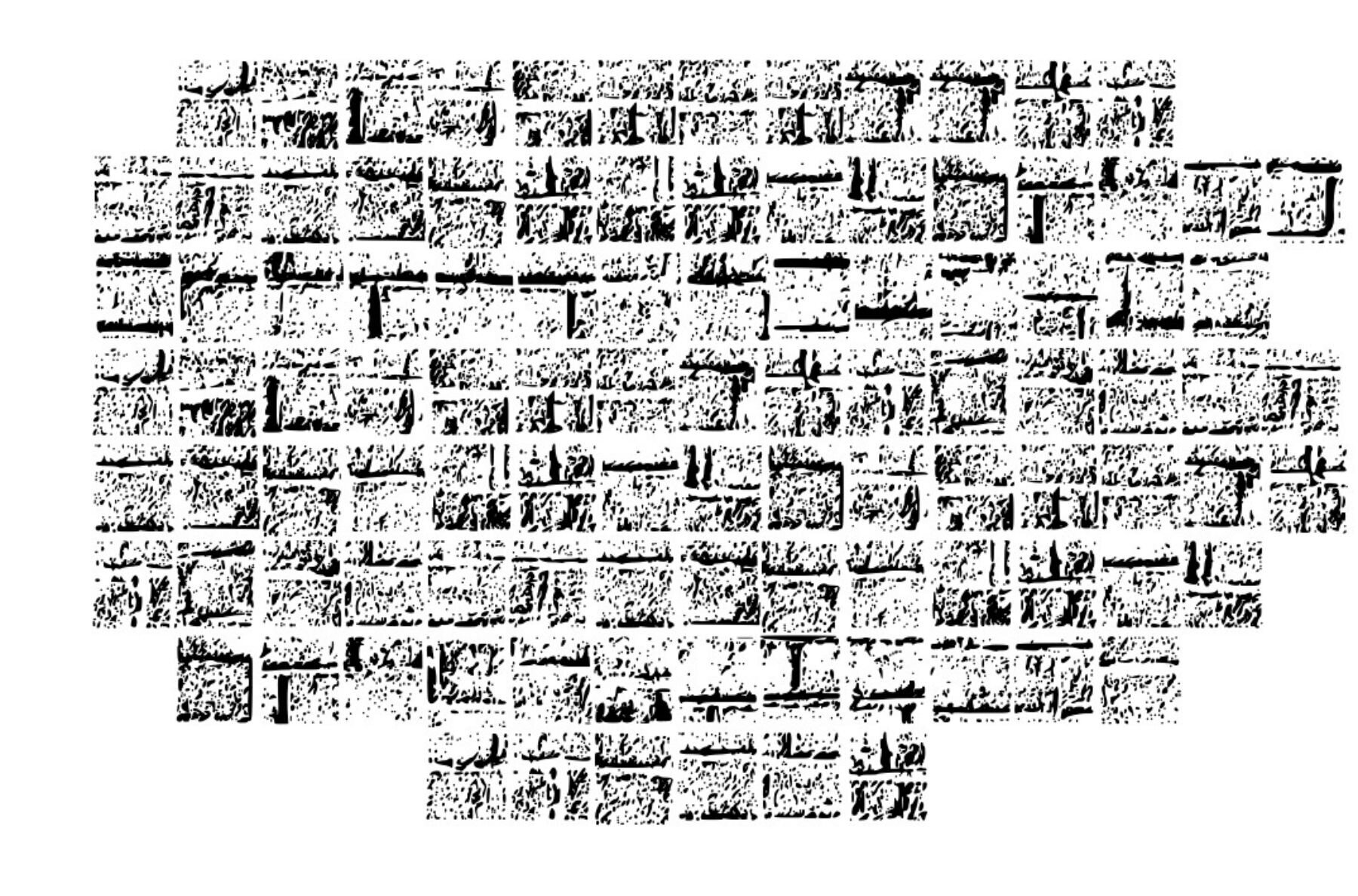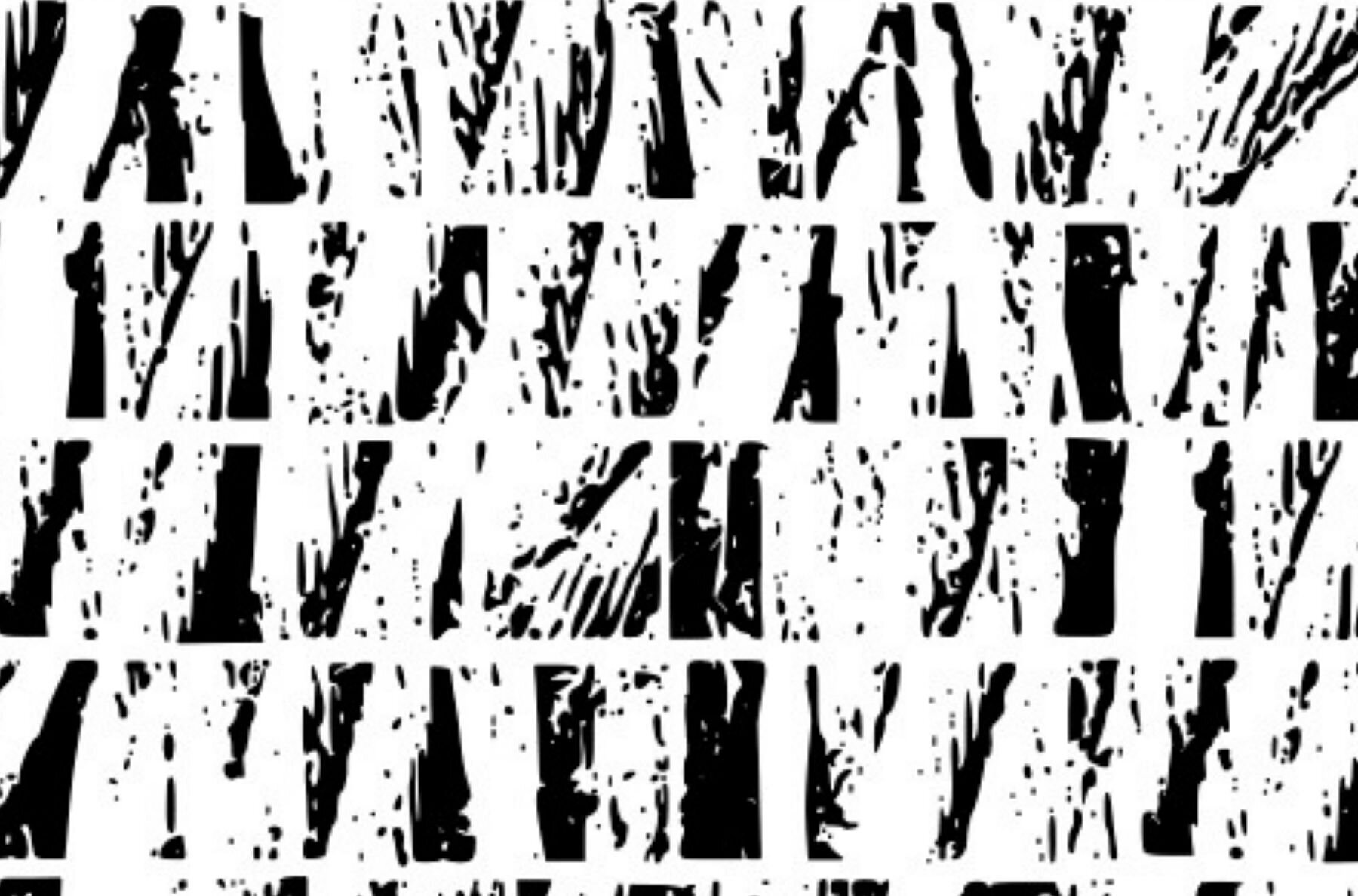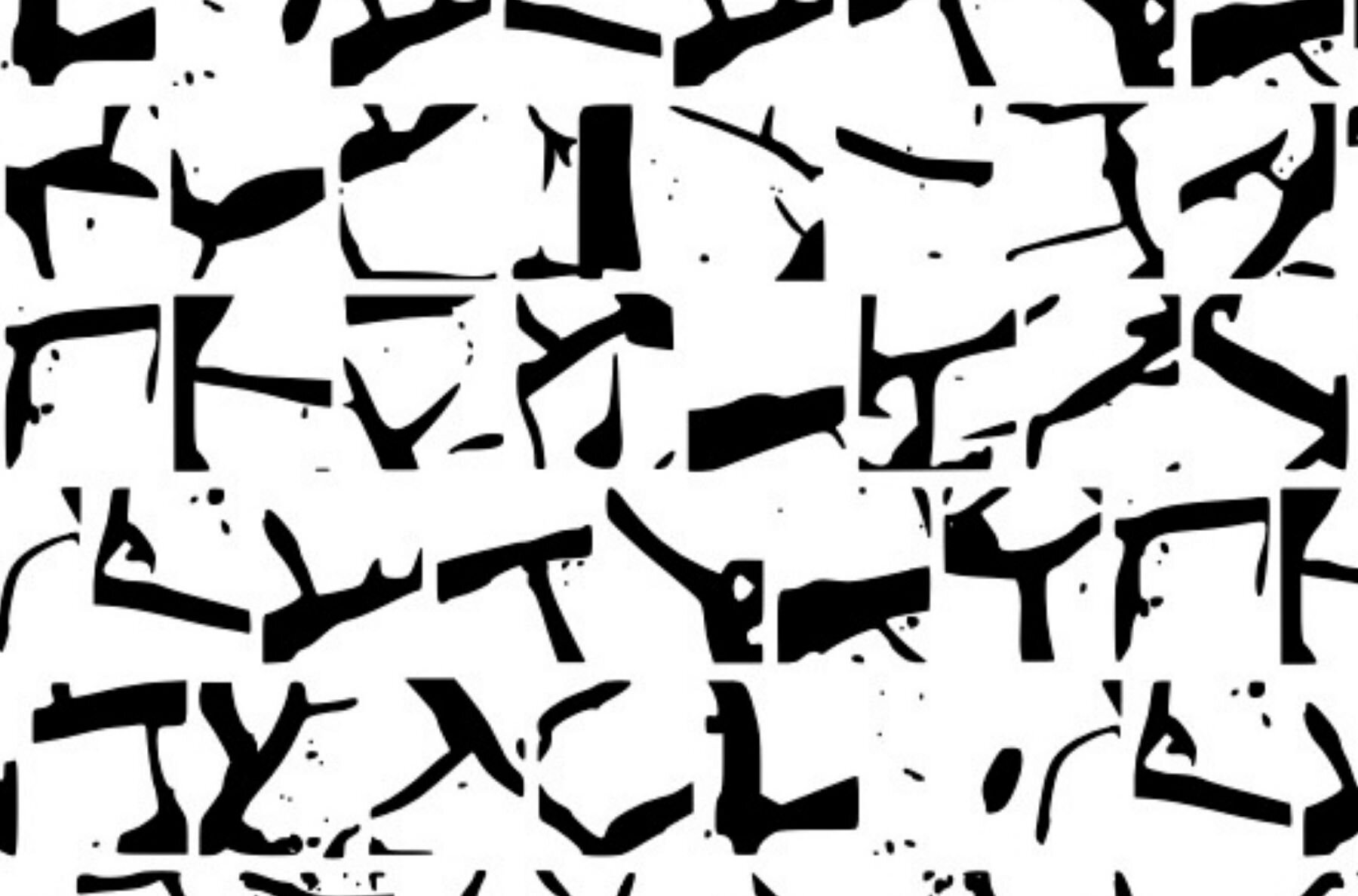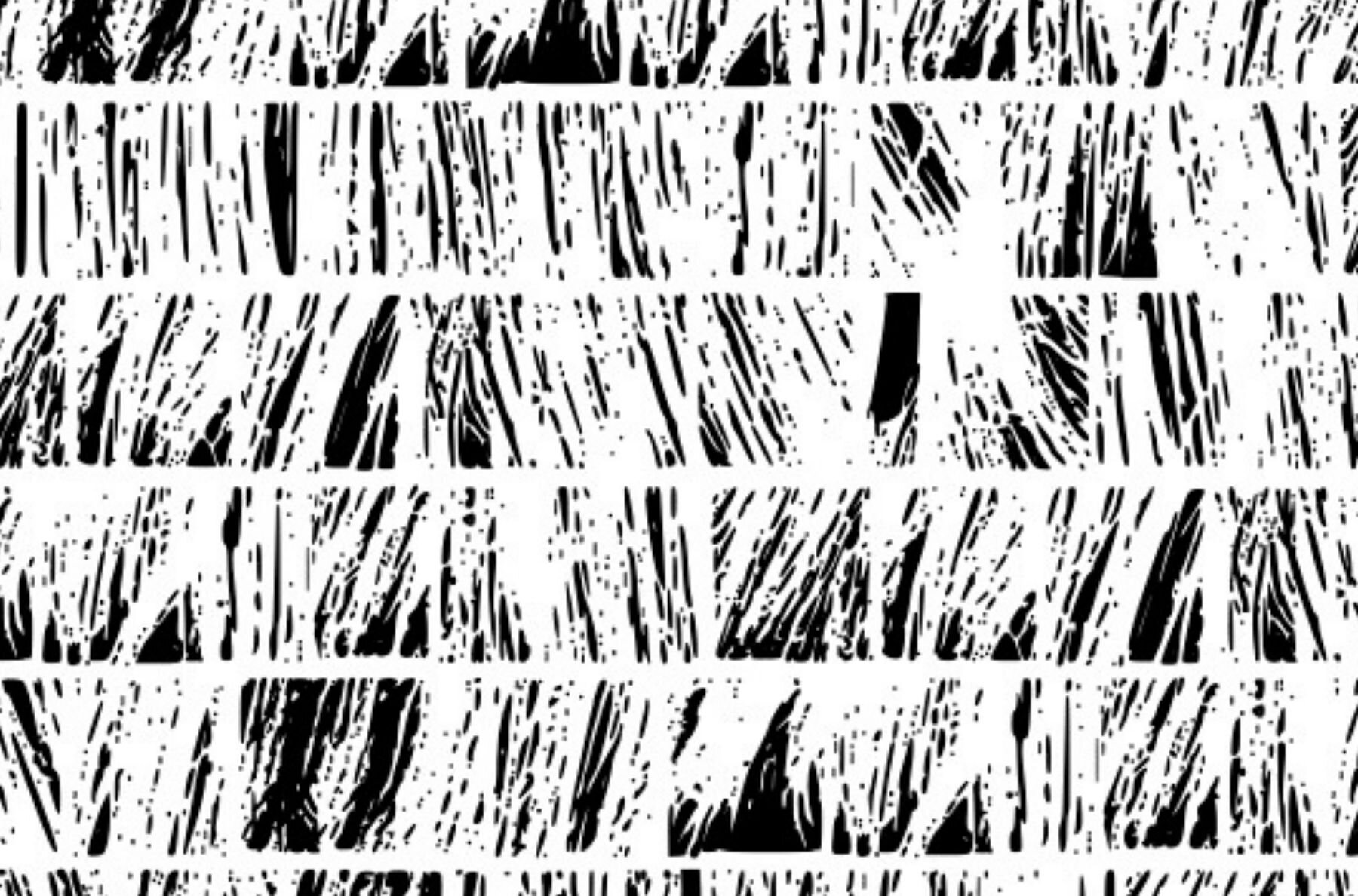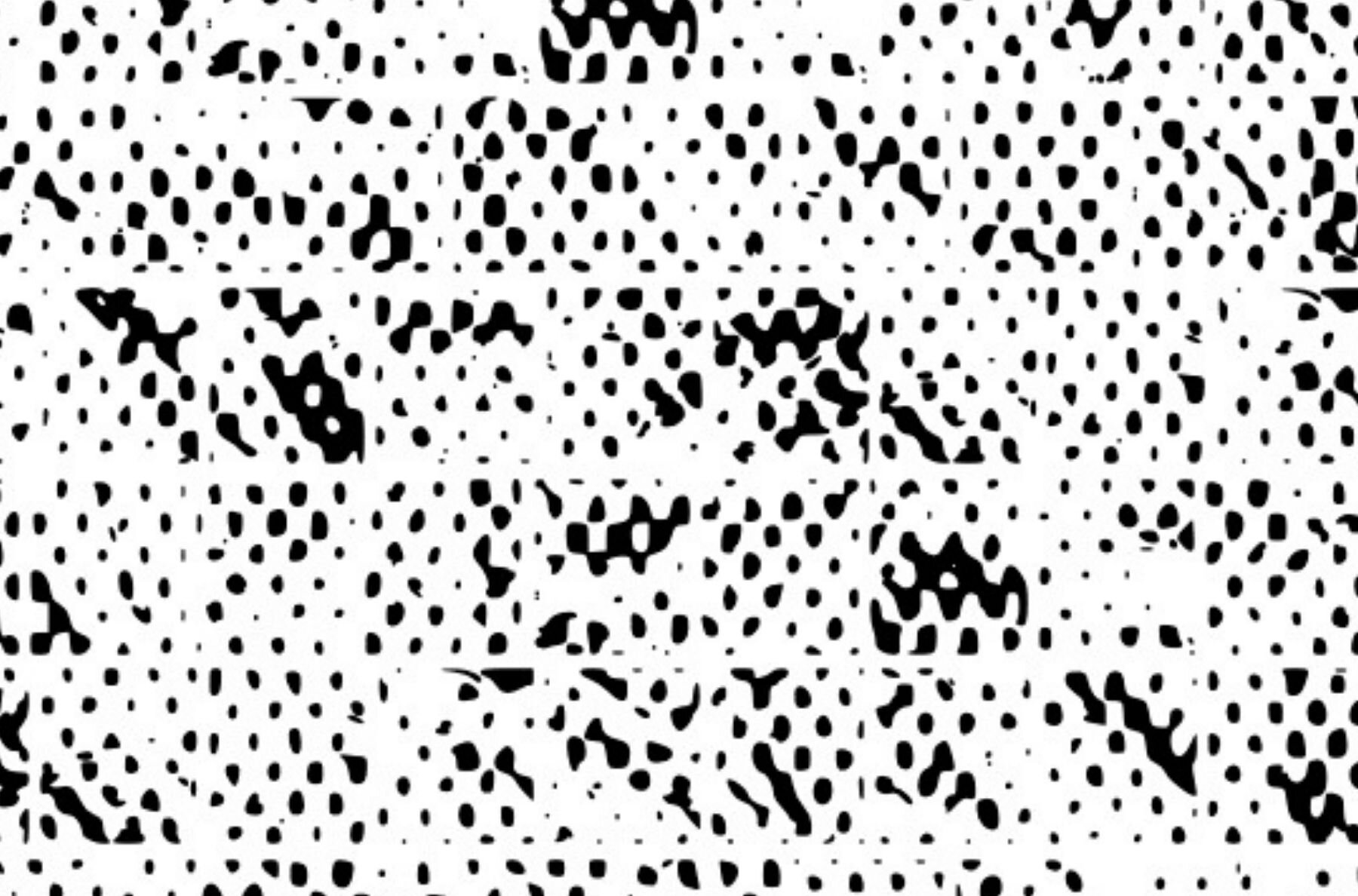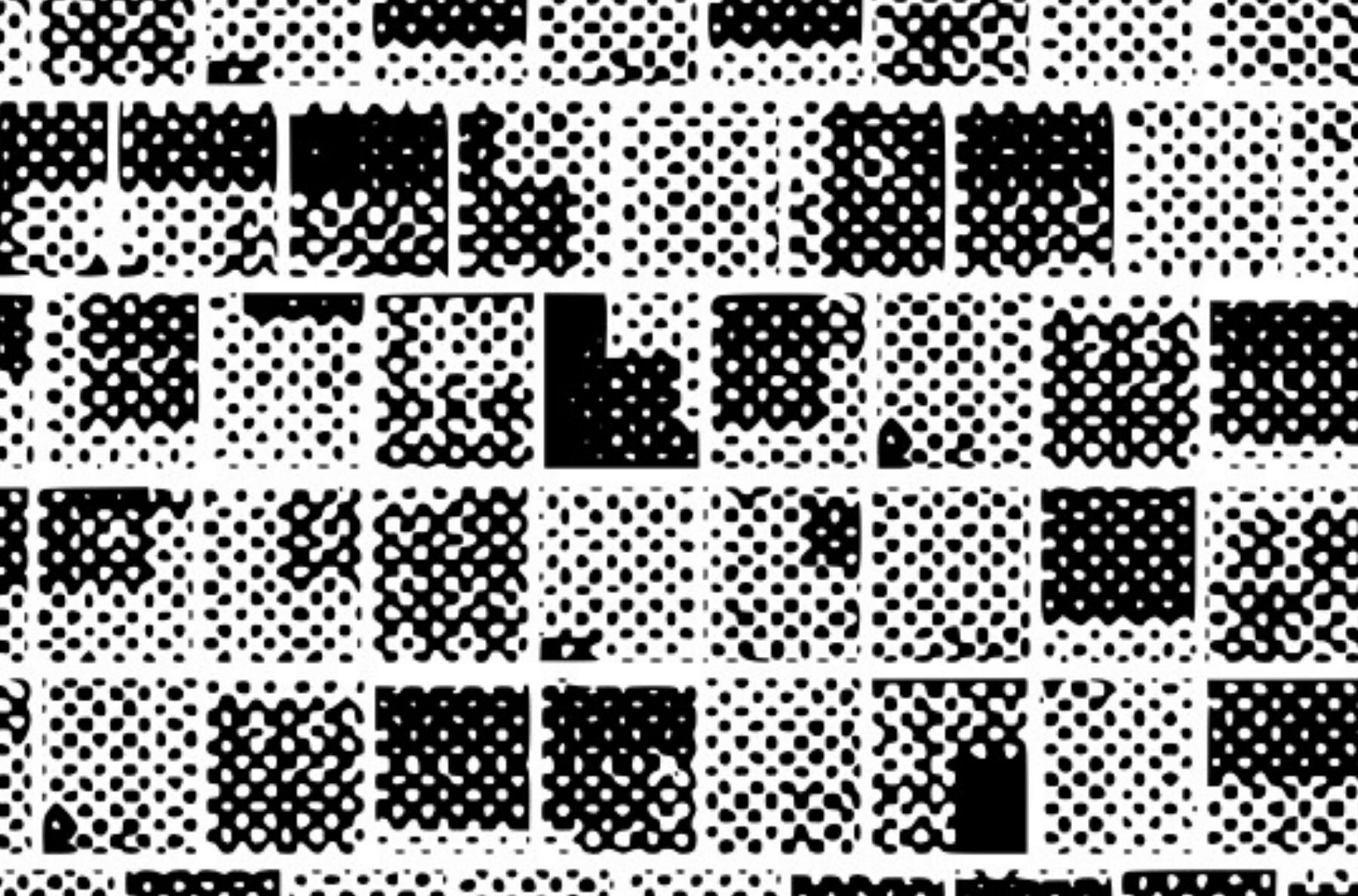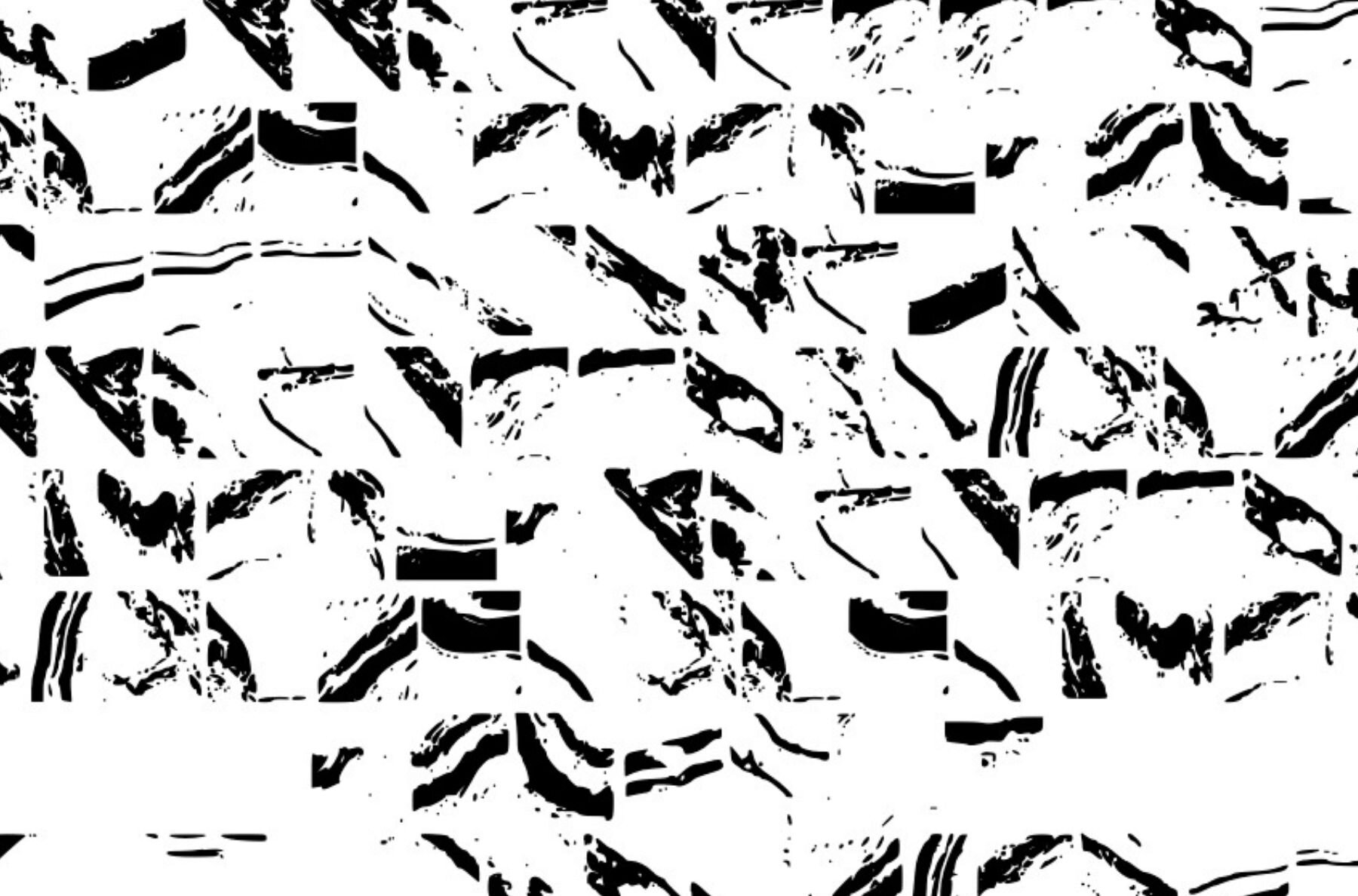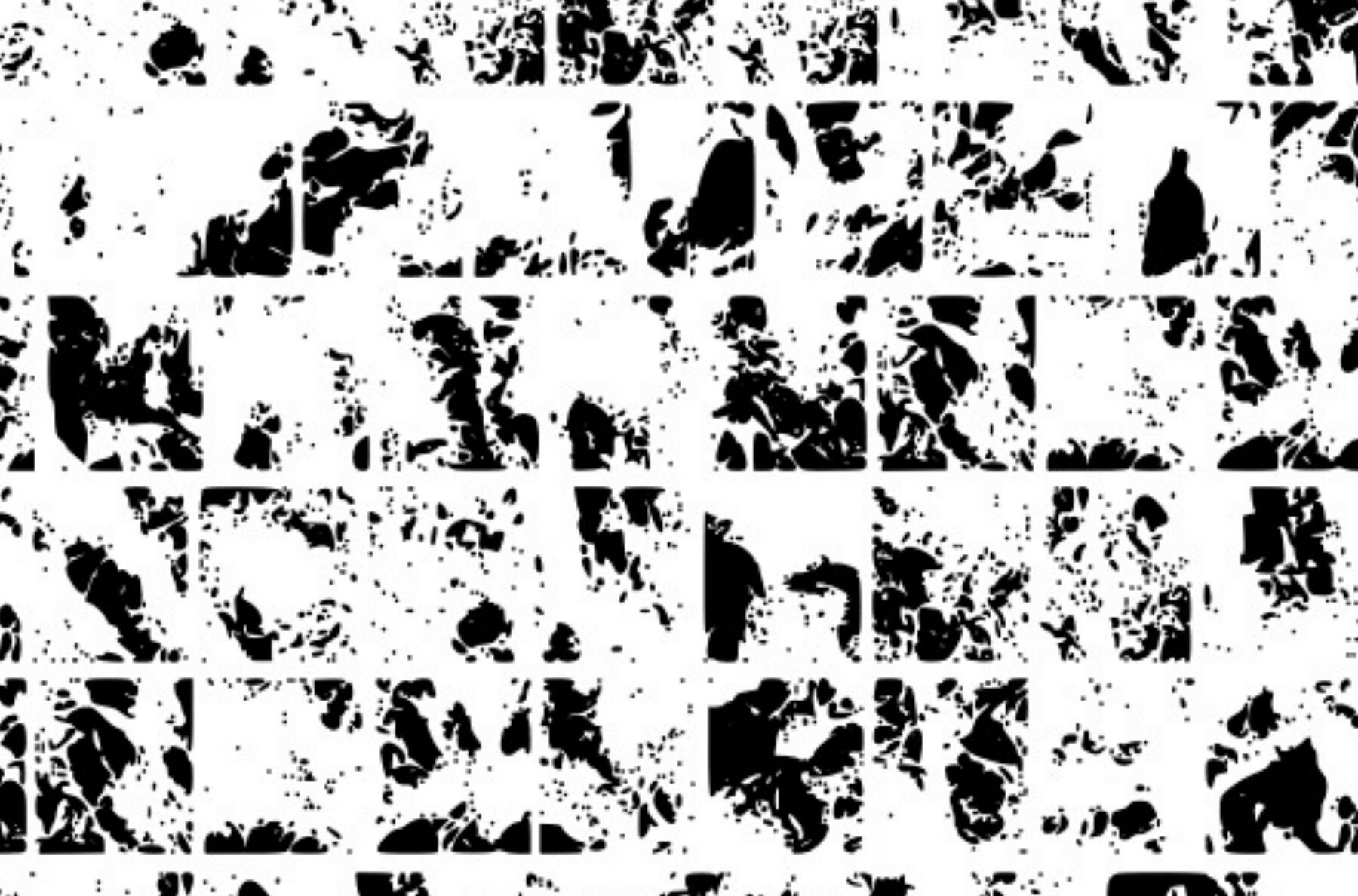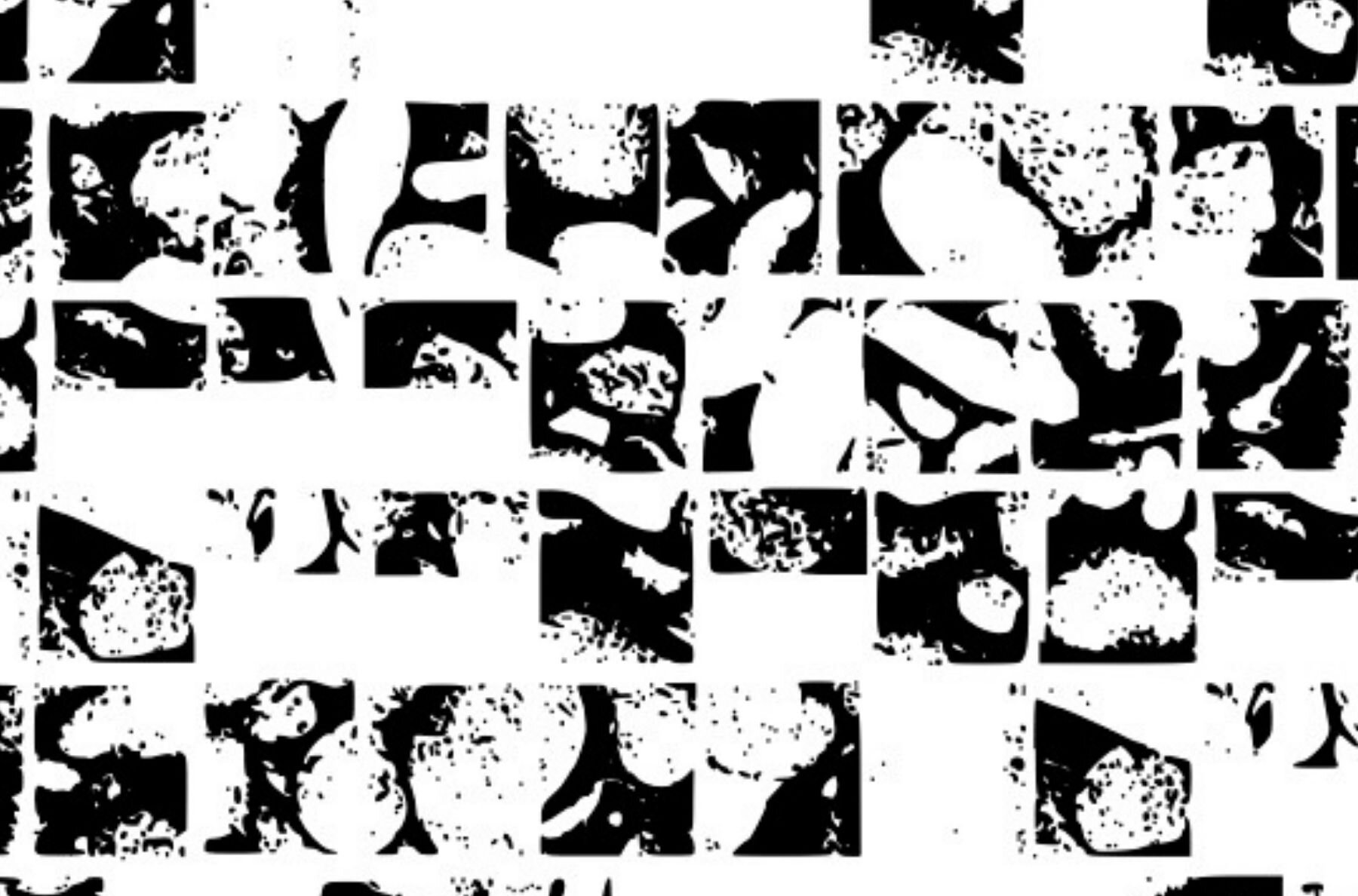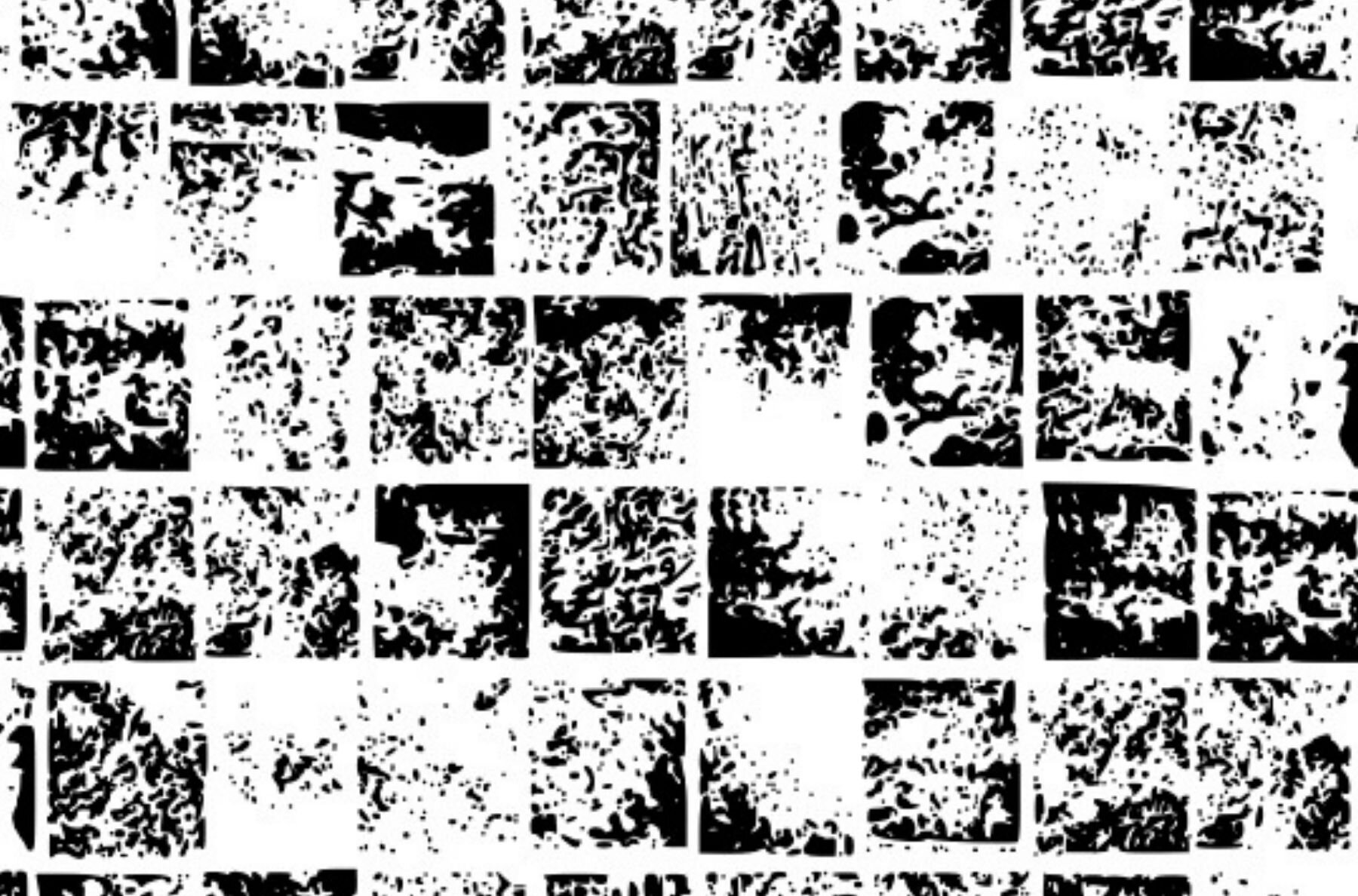
Textures Pack Font
The Textures Pack by Graphics Bam offers an impressive collection of 19 font files, each packed with over 80 unique glyphs. These fonts capture a stunning array of textures, bringing both natural and artificial designs to your creative projects. Each texture allows you to infuse your designs with authenticity and character, making this pack an essential tool for graphic designers looking to expand their typographic palette with rich and varied textures.Explore the Textures Pack
Diverse Texture Options